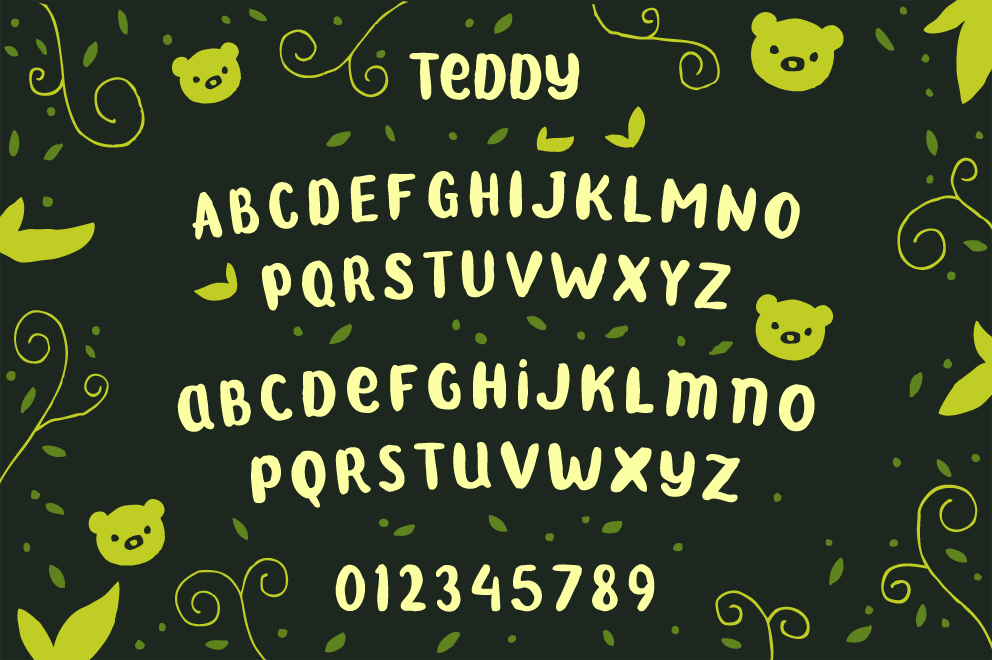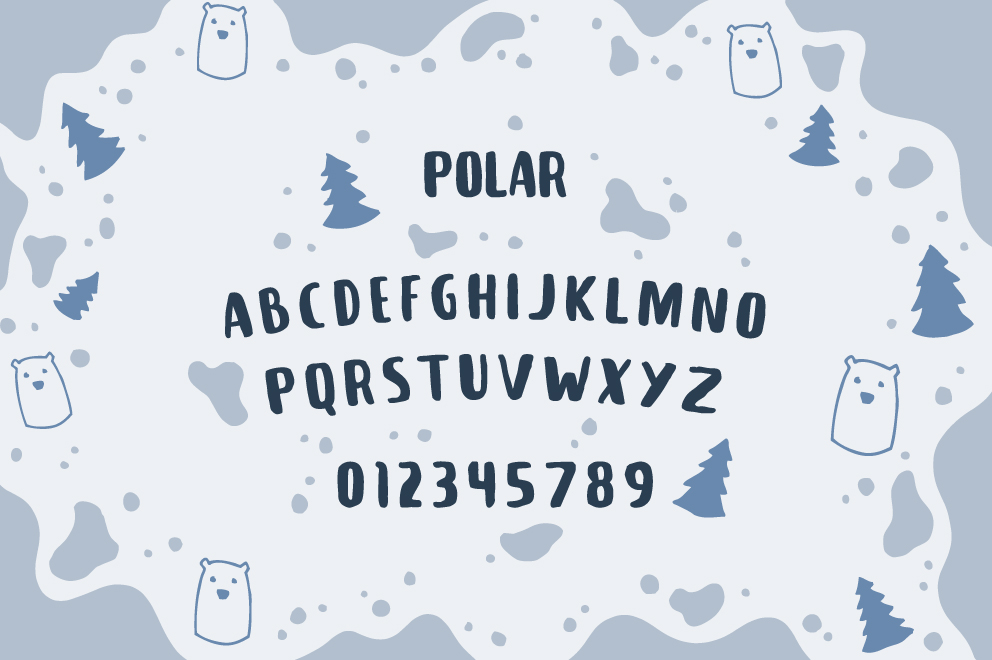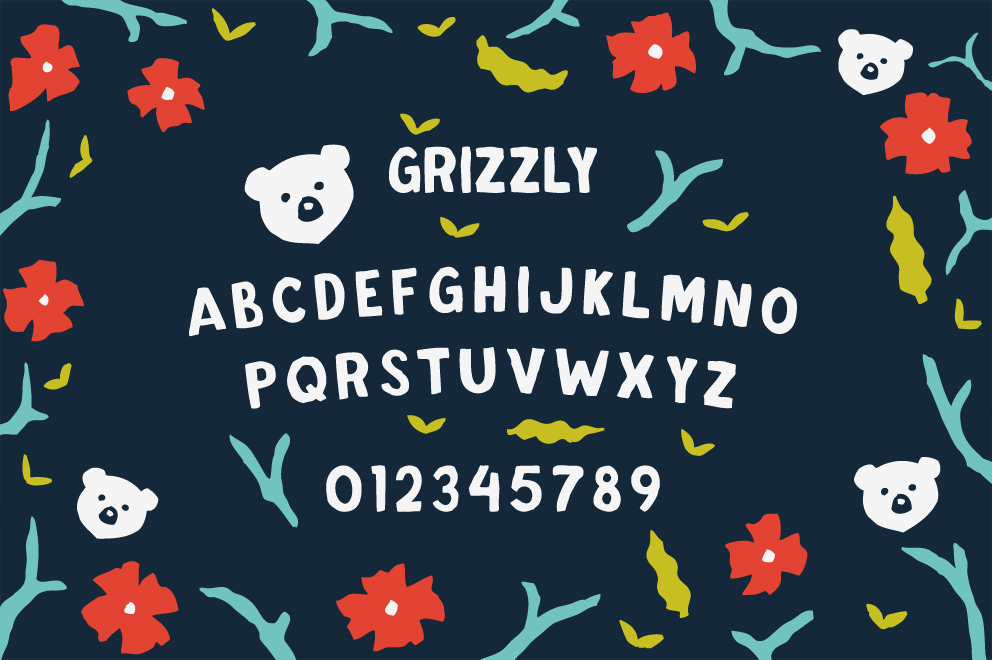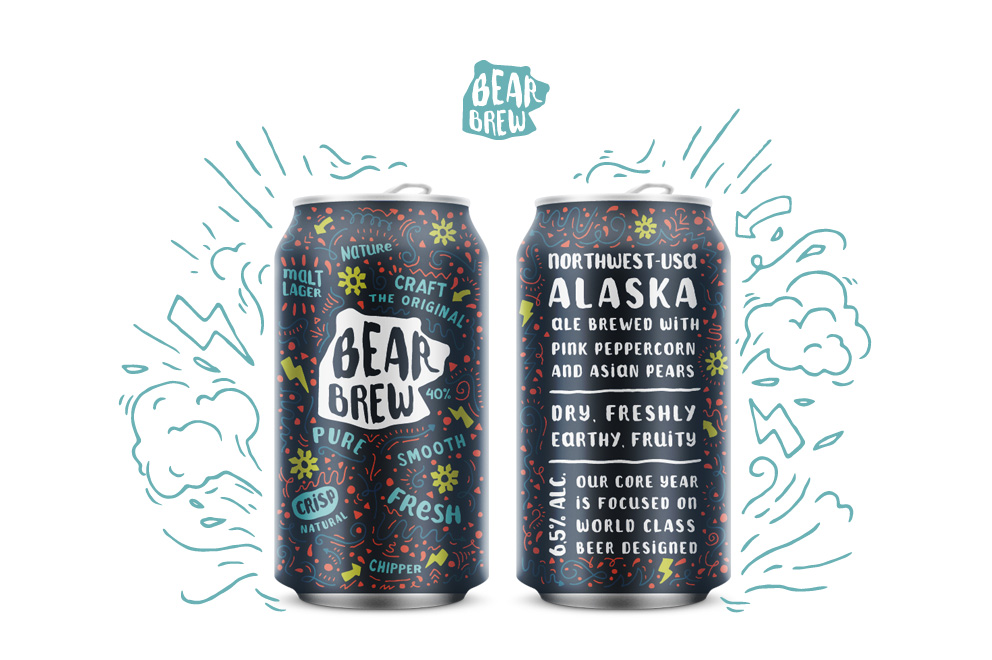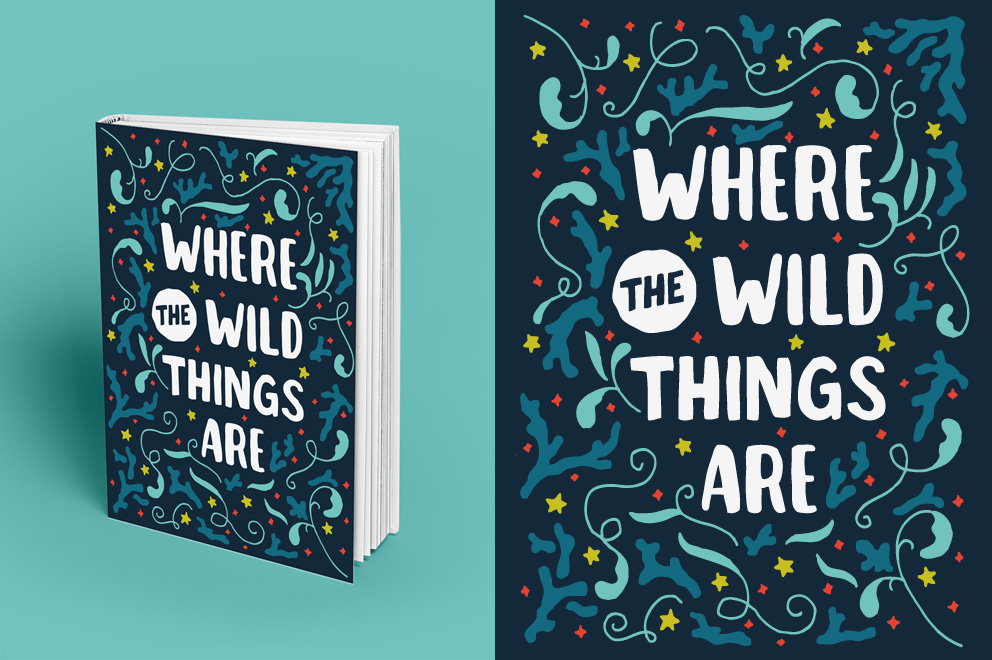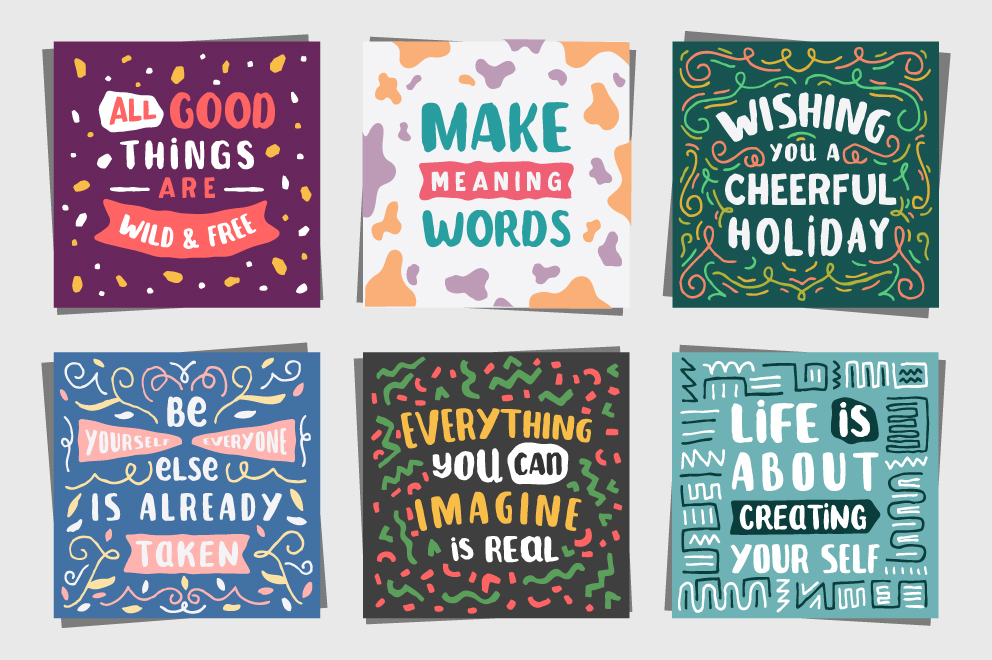
The Bear & Font Family
The bear family who live in typography life. There are 4 types of bears with a different character each other. This font family can help you to create fun design. Recommended for kids book cover, food & beverage labels, handmade printing, and packaging.